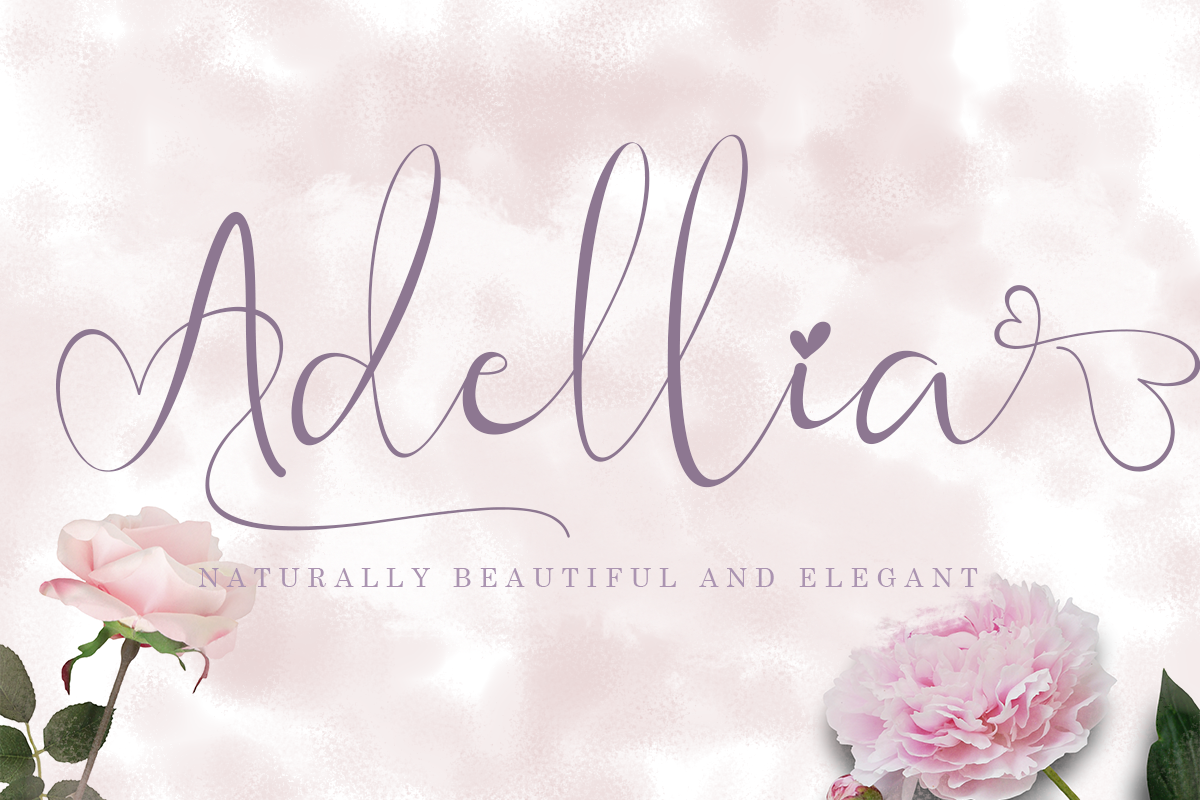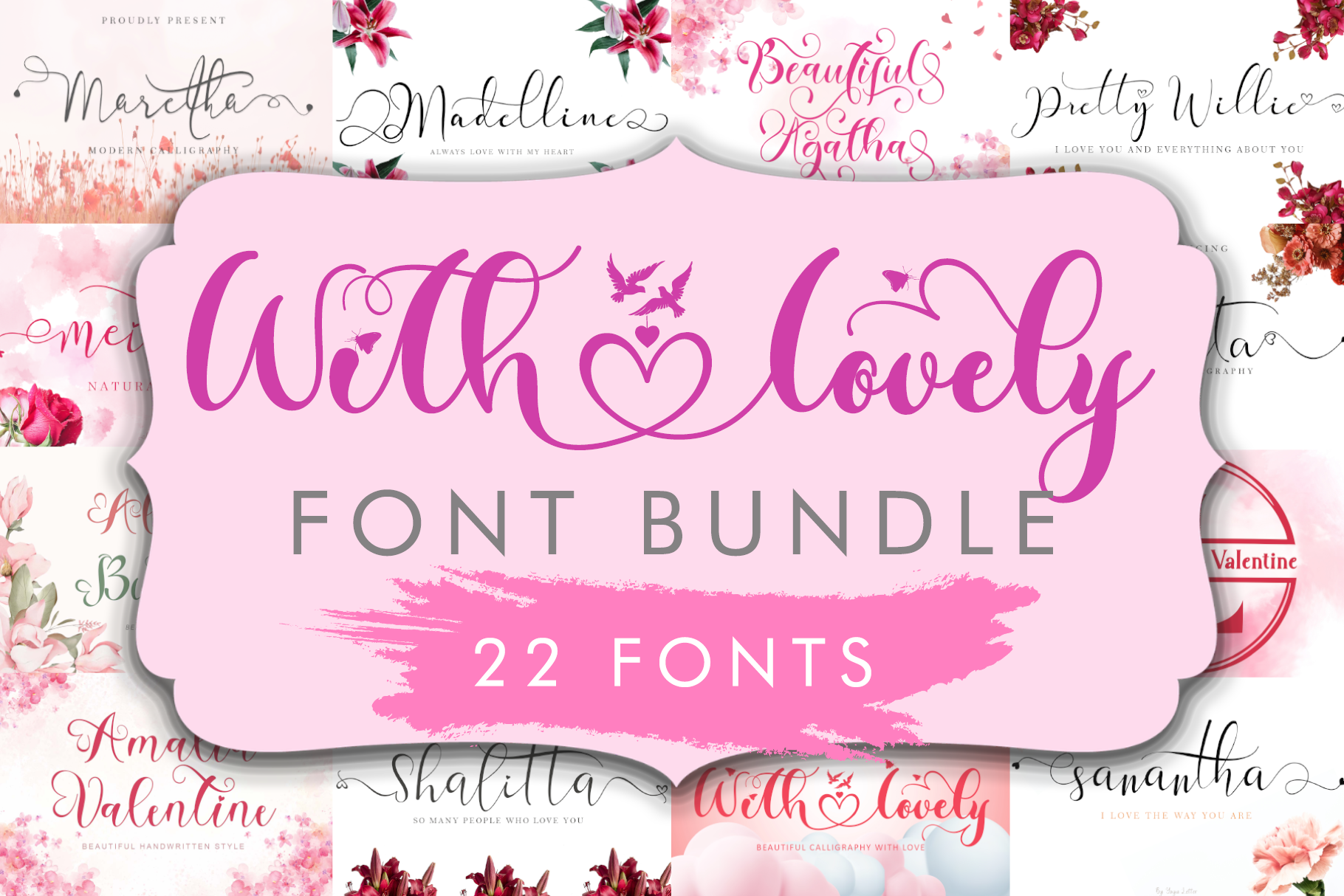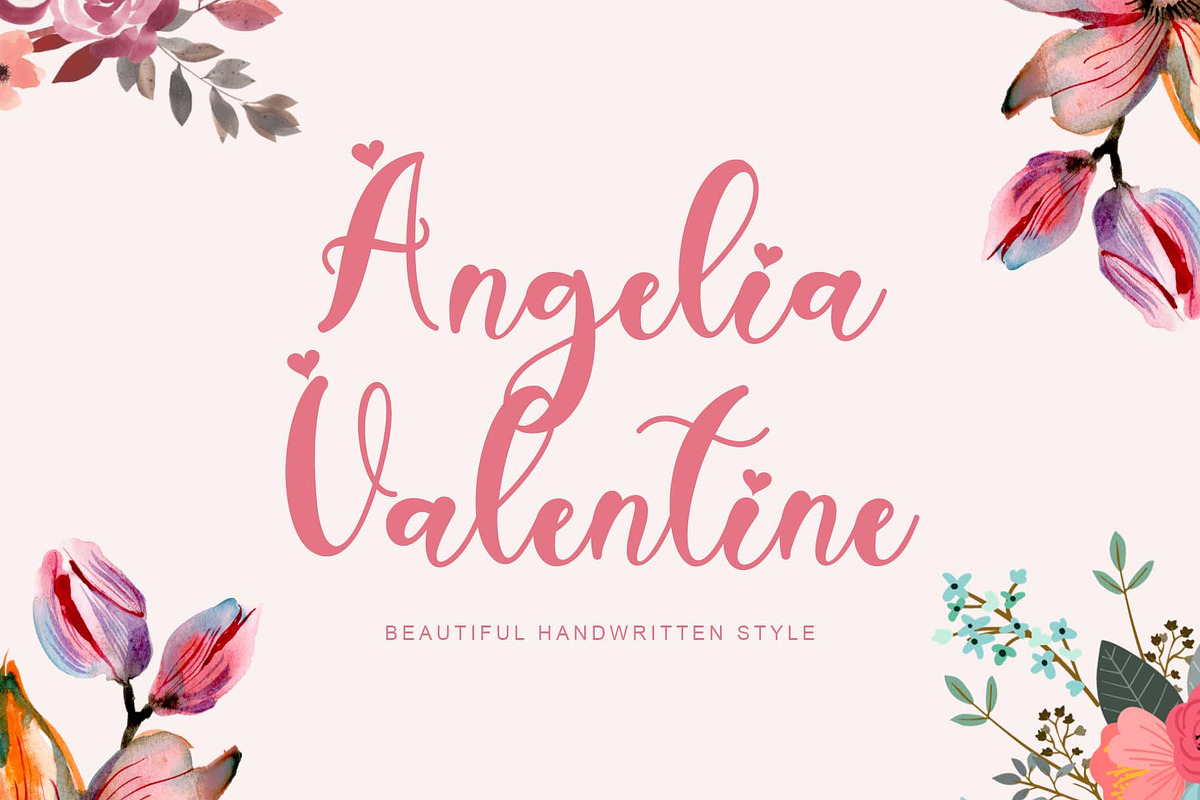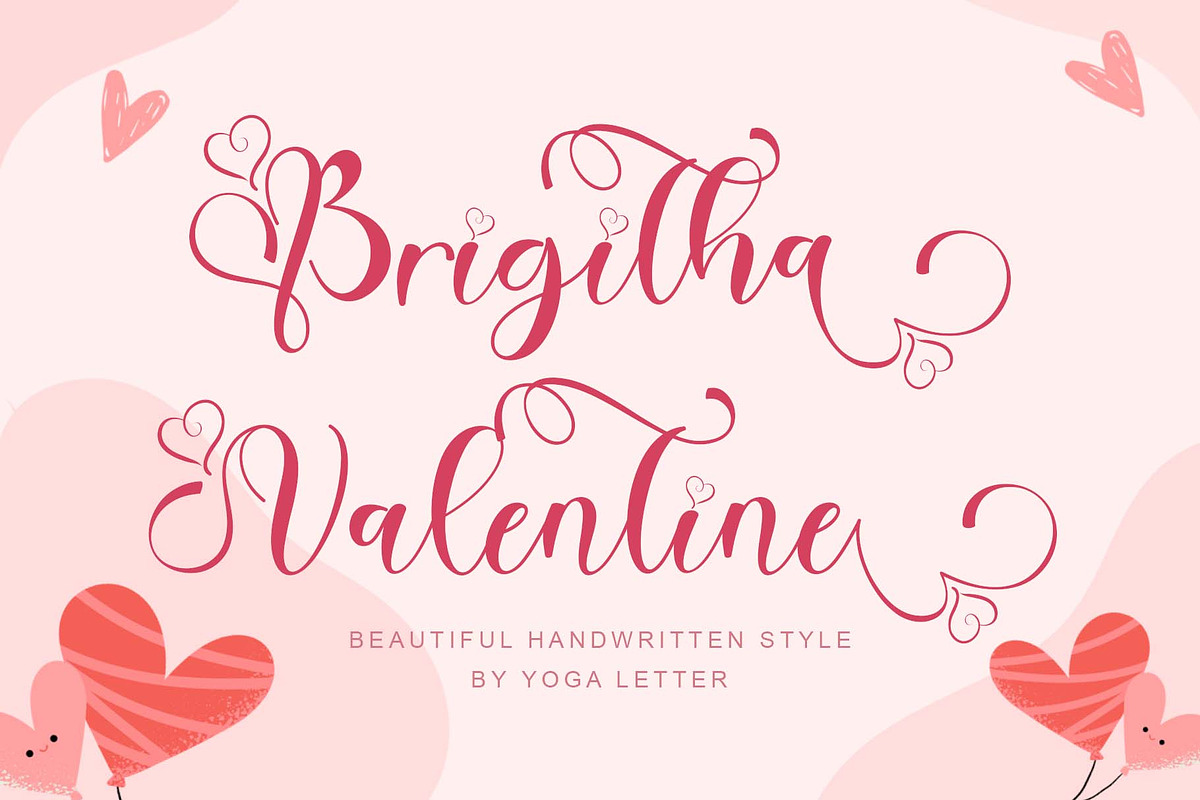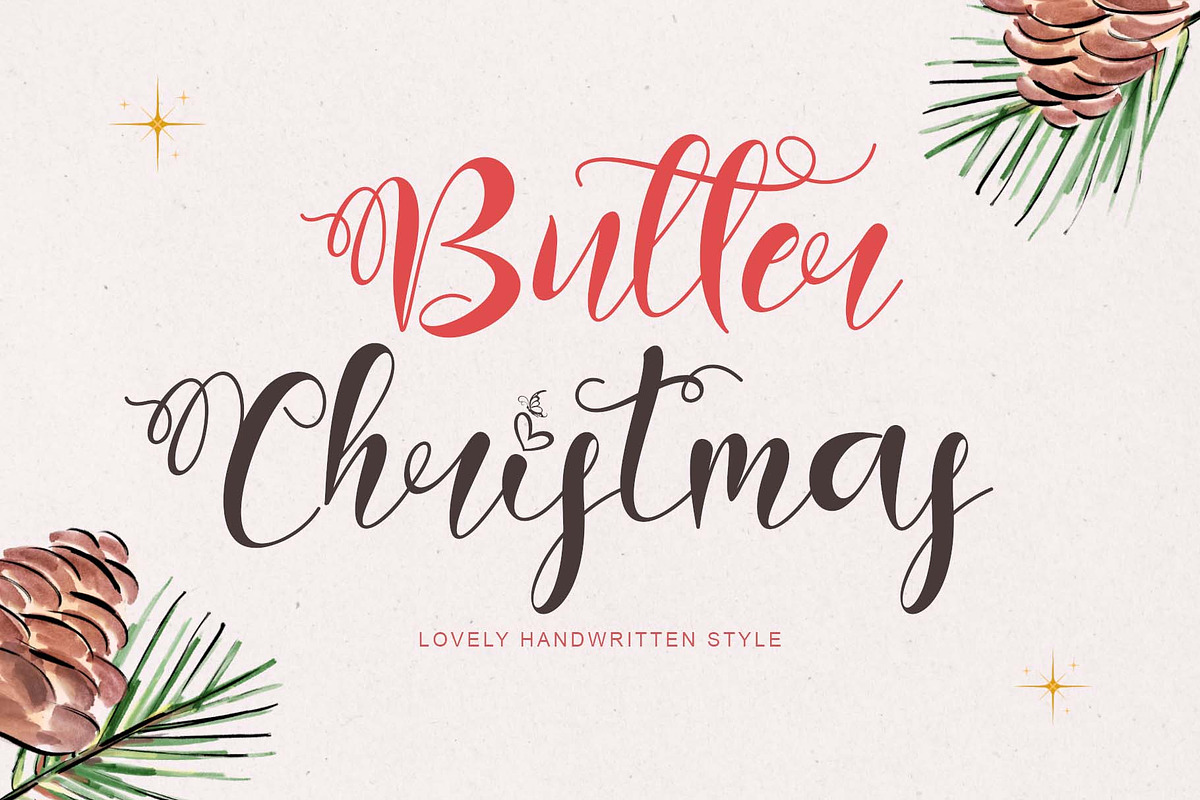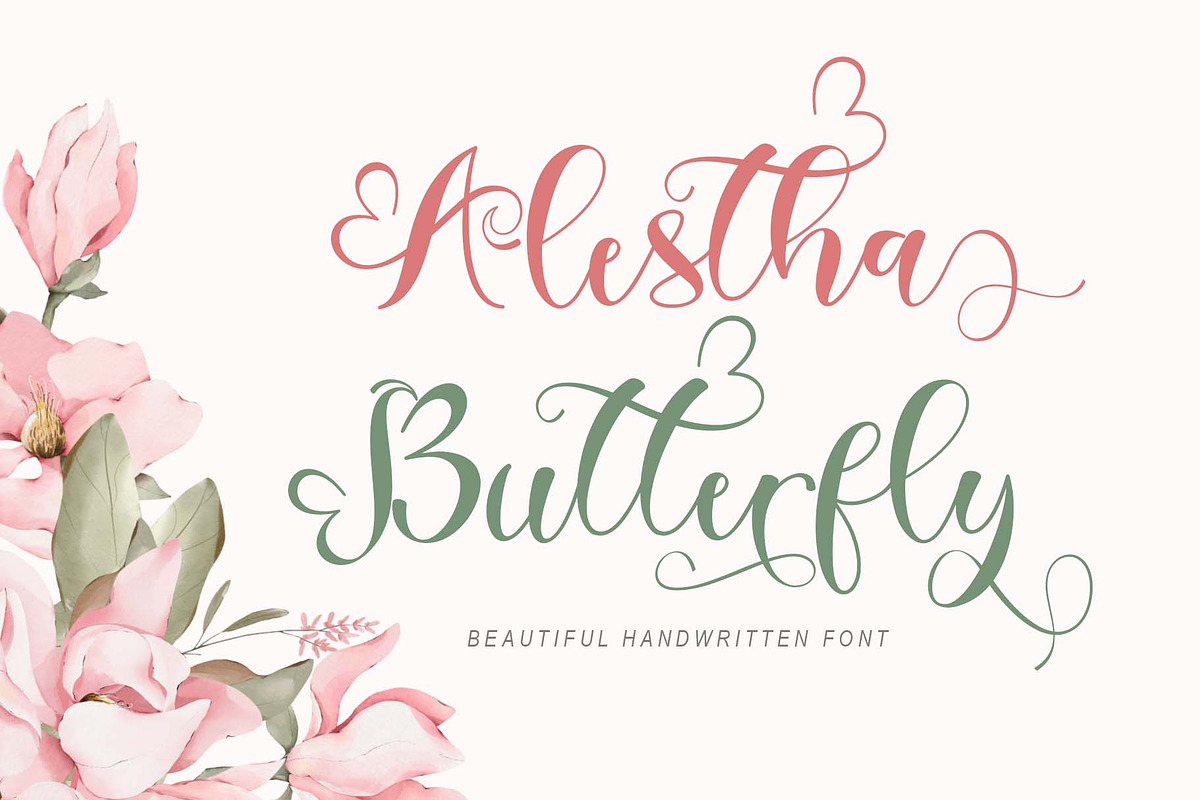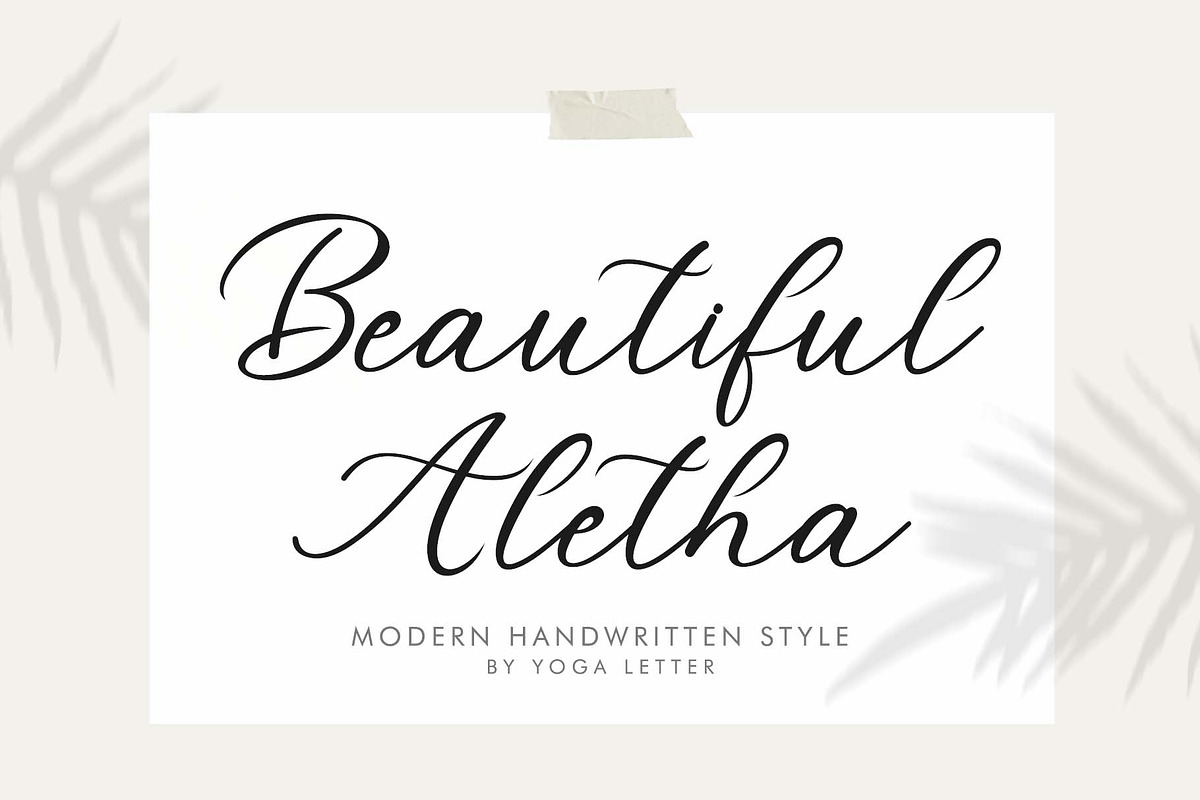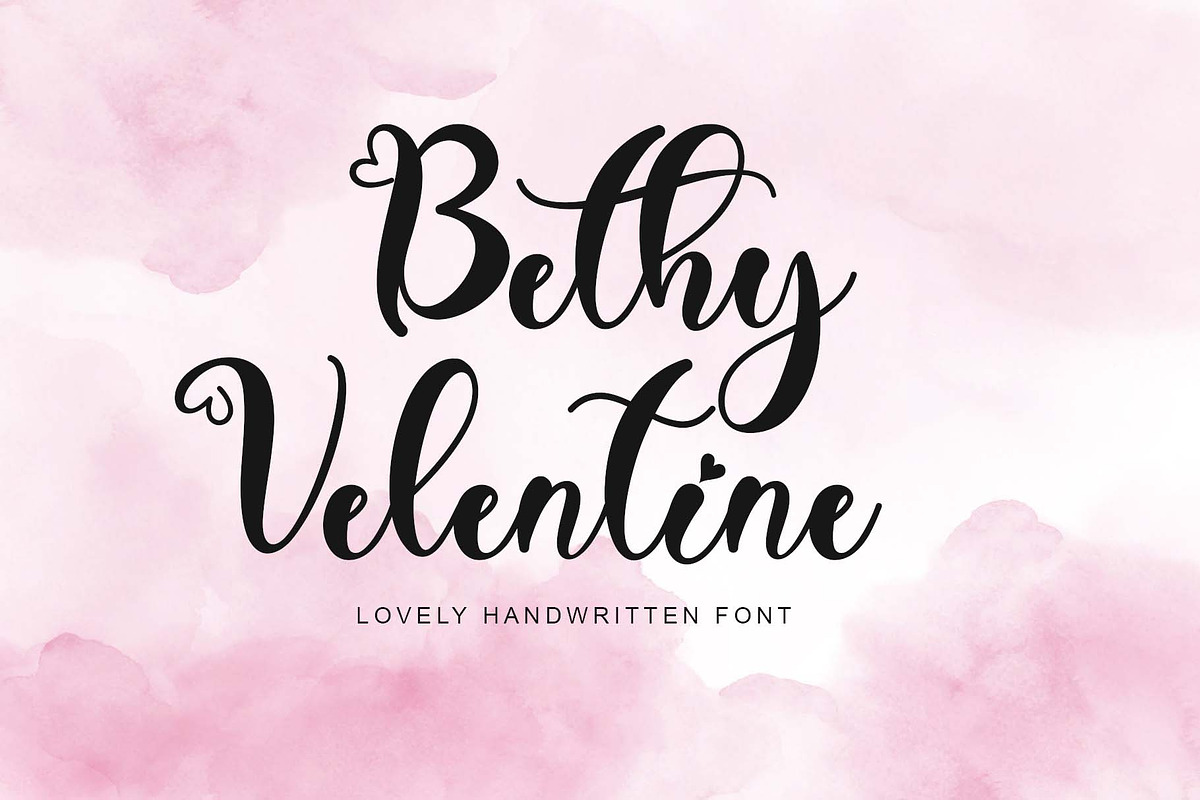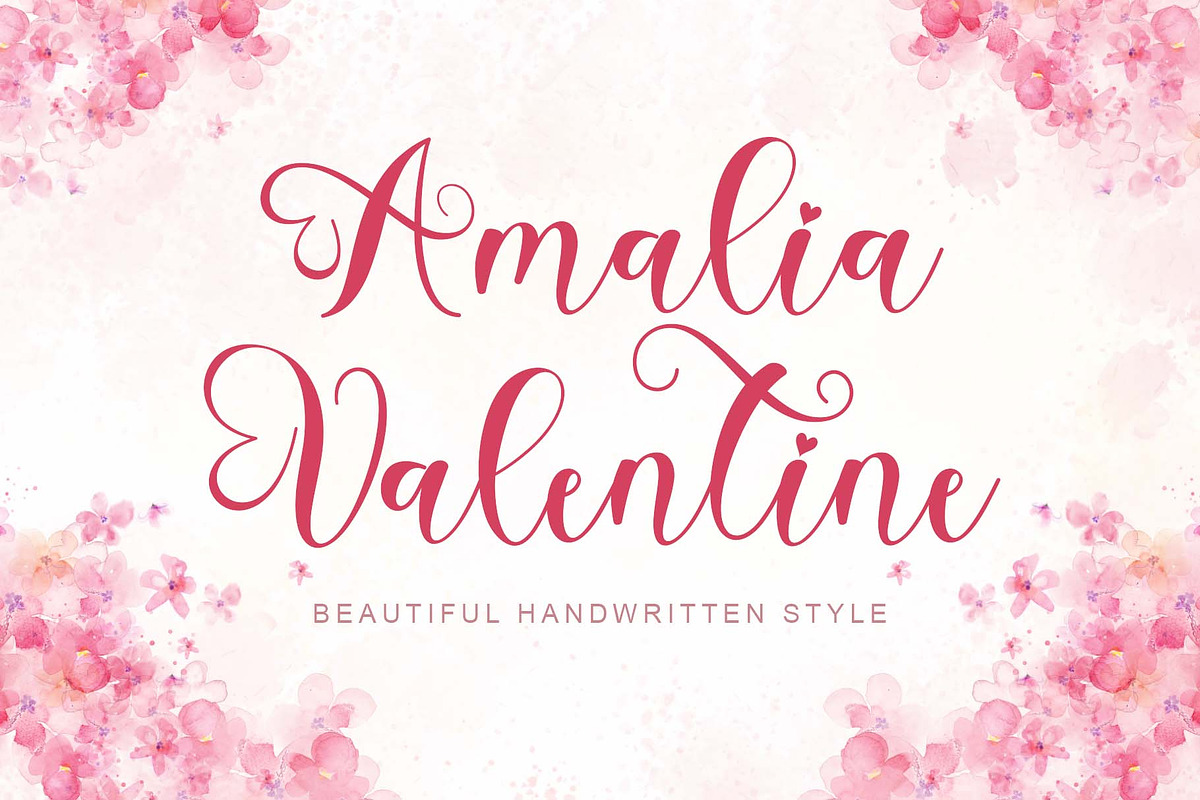
With Lovely Font Bundle
This bundle contains 22 beautiful font:
- With Lovely
- Alestha Butterfly
- Shalitta
- Angelia Valentine
- Beautiful Agatha
- Beautiful Aletha
- Bethy Valentine
- Brigitha Valentine
- Butter Christmas
- Christmas Style
- Agatha
- Dorothy Valentine
- Khalitta
- Lovely Style
- Lovely Valentine Monogram
- Madeline
- Maretha
- Meillea
- Pretty Willie
- Sanantha
- Amalia Valentine
- Adellia